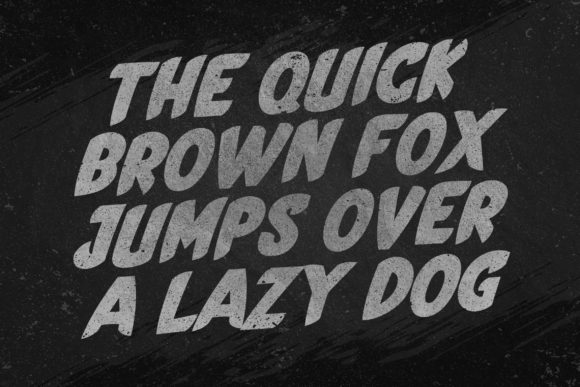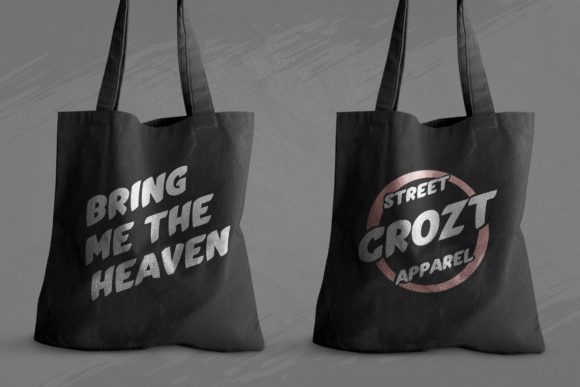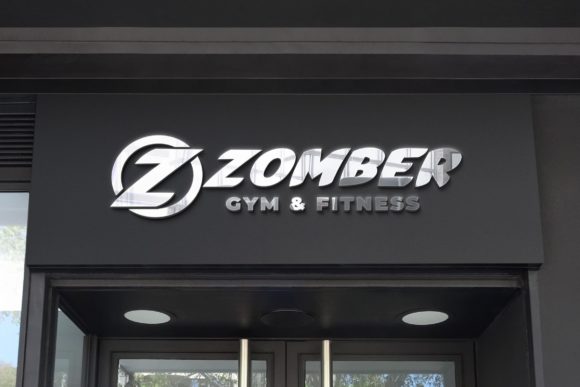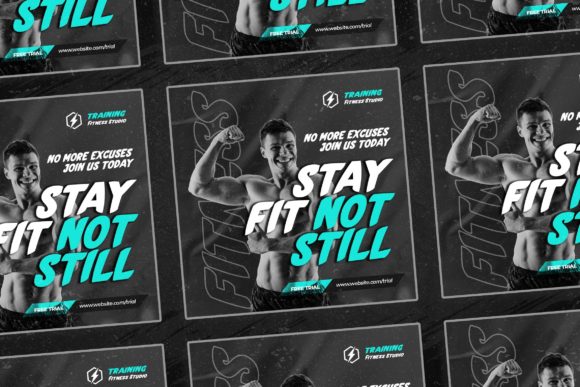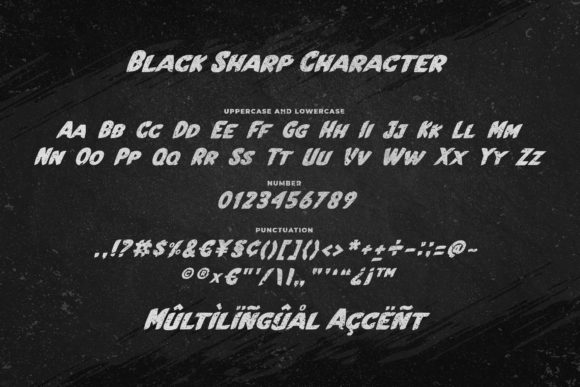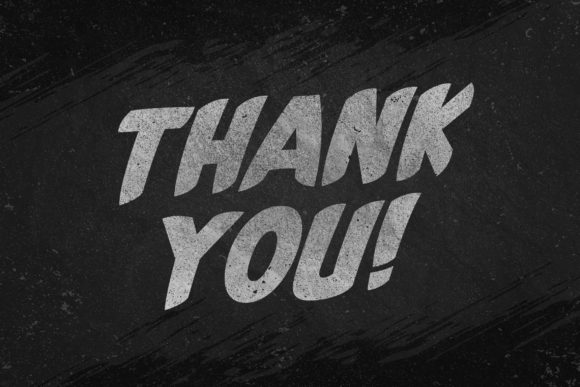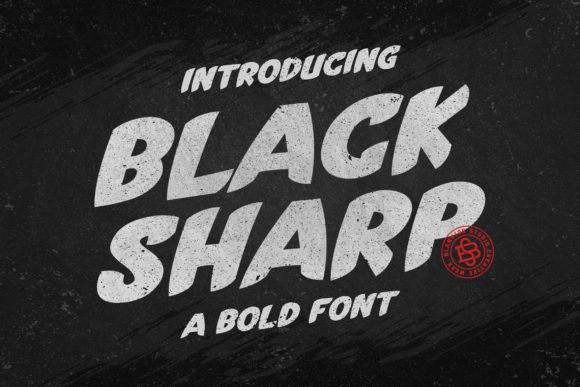
Introducing Black Sharp Font: The Ultimate Display Font for Creative Projects
Are you tired of using the same old fonts for your creative projects? Do you want to make your designs stand out and grab attention? Look no further than Black Sharp Font, a cool and thick lettered display font that’s perfect for adding a touch of sophistication and elegance to your work.
What is Black Sharp Font?
Black Sharp Font is a modern and edgy display font that’s designed to make a statement. With its thick, bold lines and sharp edges, this font is perfect for creating eye-catching headlines, titles, and captions that demand attention. Whether you’re working on a graphic design project, crafting a logo, or creating social media graphics, Black Sharp Font is the perfect choice.
Key Features of Black Sharp Font
• Thick and bold lines: Black Sharp Font features thick and bold lines that give it a rugged and edgy look.
• Sharp edges: The font’s sharp edges add a touch of sophistication and elegance to your designs.
• Highly legible: Despite its bold and edgy design, Black Sharp Font is highly legible, making it perfect for use in a variety of creative projects.
• Versatile: Black Sharp Font can be used in a variety of creative projects, from graphic design and branding to crafting and DIY projects.
How to Use Black Sharp Font in Your Creative Projects
Black Sharp Font is a versatile font that can be used in a variety of creative projects. Here are some ideas to get you started:
• Graphic design projects: Use Black Sharp Font to create eye-catching headlines and titles for your graphic design projects.
• Branding and logos: Create a bold and memorable logo for your brand using Black Sharp Font.
• Social media graphics: Use Black Sharp Font to create eye-catching social media graphics that grab attention.
• Crafting and DIY projects: Add a touch of elegance and sophistication to your crafting and DIY projects with Black Sharp Font.
Benefits of Using Black Sharp Font
There are many benefits to using Black Sharp Font in your creative projects. Here are just a few:
• Makes your designs stand out: Black Sharp Font is a bold and eye-catching font that’s sure to make your designs stand out.
• Adds a touch of sophistication: The font’s sharp edges and bold lines add a touch of sophistication and elegance to your designs.
• Highly versatile: Black Sharp Font can be used in a variety of creative projects, making it a great addition to your font library.
Tips for Using Black Sharp Font Effectively
Here are some tips for using Black Sharp Font effectively in your creative projects:
• Use it sparingly: While Black Sharp Font is a bold and eye-catching font, it can be overwhelming if used too much. Use it sparingly to create emphasis and add visual interest.
• Pair it with other fonts: Black Sharp Font pairs well with a variety of other fonts. Experiment with different pairings to find the one that works best for your project.
• Experiment with different colors: Black Sharp Font looks great in a variety of colors. Experiment with different colors to find the one that works best for your project.
Font Name Black Sharp Font
Author Blankids Studio
Black Sharp Font is a cool and thick lettered display font that’s perfect for adding a touch of sophistication and elegance to your creative projects. With its bold and edgy design, this font is sure to make your designs stand out and grab attention. Whether you’re a designer, crafter, or DIY enthusiast, Black Sharp Font is a great addition to your font library.